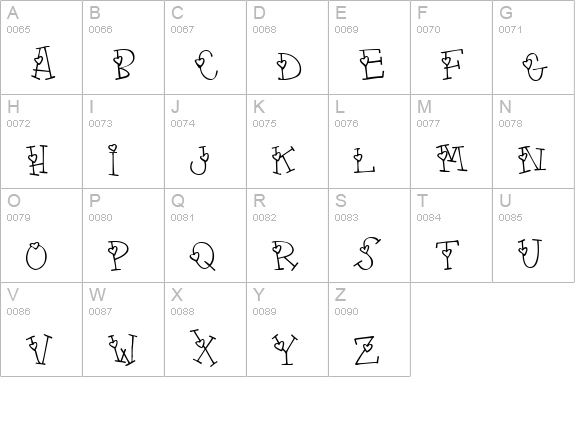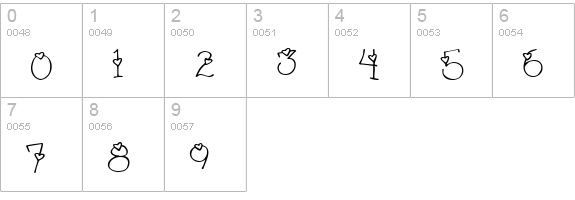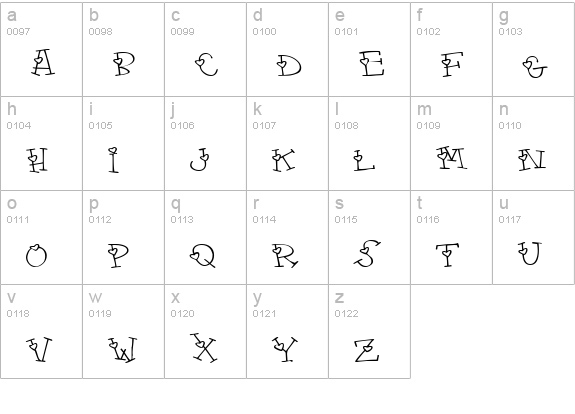
4 my lover Font Details
Introducing the elegant and romantic 4 My Lover font, a beautiful script typeface that captures the essence of love and passion. This font features graceful and flowing letterforms that exude charm and sophistication, making it perfect for adding a touch of romance to your designs. With its delicate curves and stylish flourishes, 4 My Lover is ideal for wedding invitations, love letters, greeting cards, and more. Whether you're expressing your feelings to a loved one or creating stunning designs for a special occasion, this font will add a touch of elegance and romance to any project. Best of all, 4 My Lover is available for free download at FontsMarket.com, allowing you to easily access this stunning font and incorporate it into your designs with ease. Don't miss out on the opportunity to add a touch of romance to your projects with the gorgeous 4 My Lover font. Download it today and let your creativity soar!